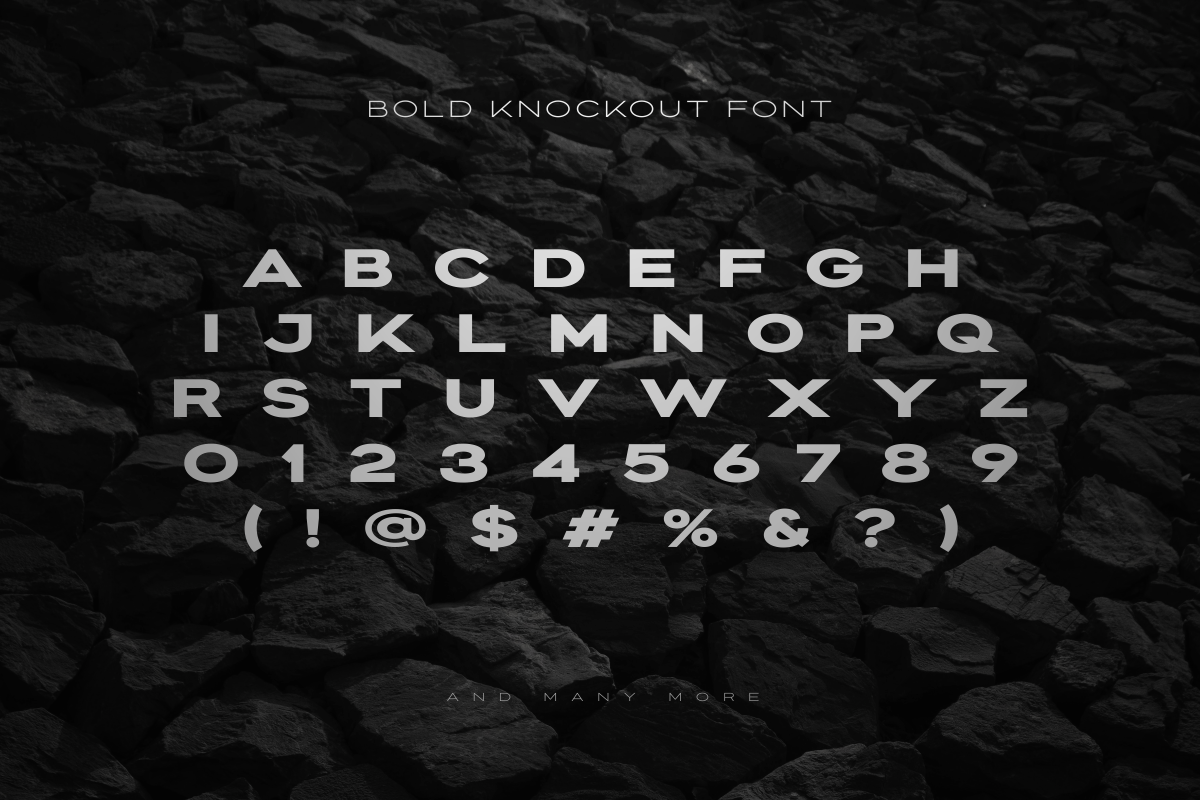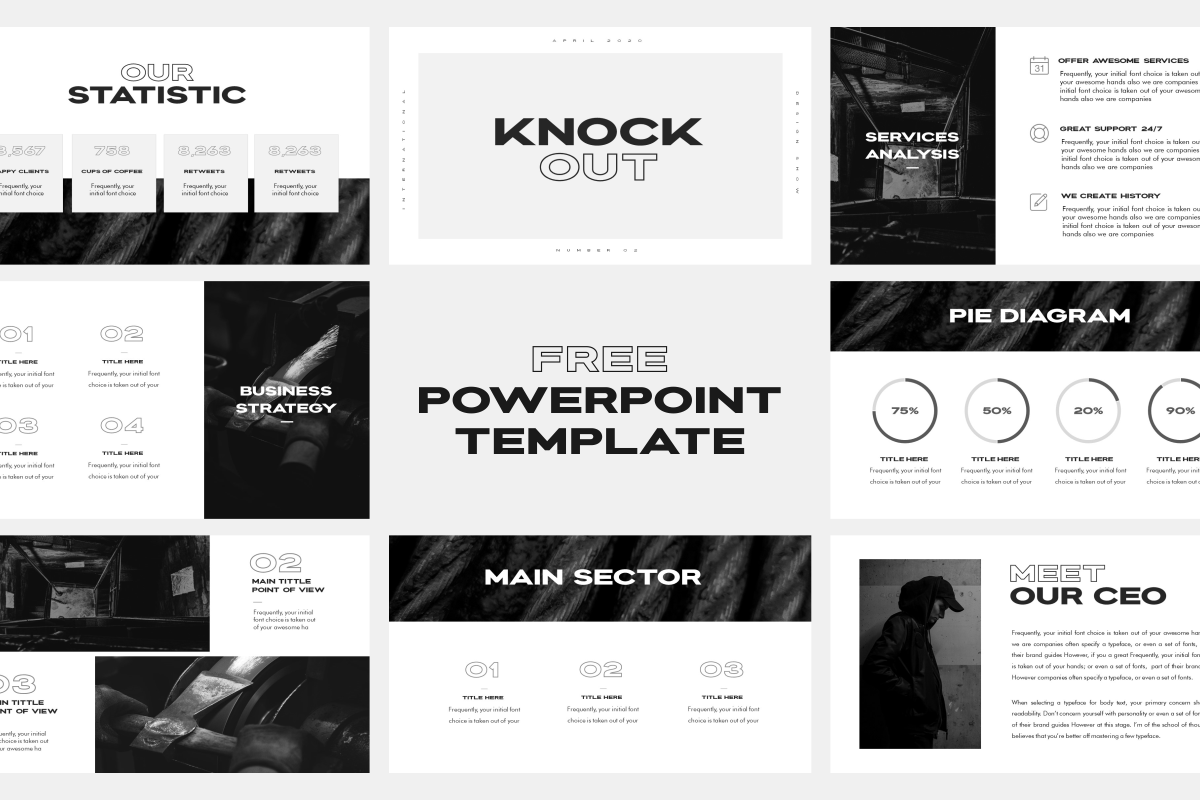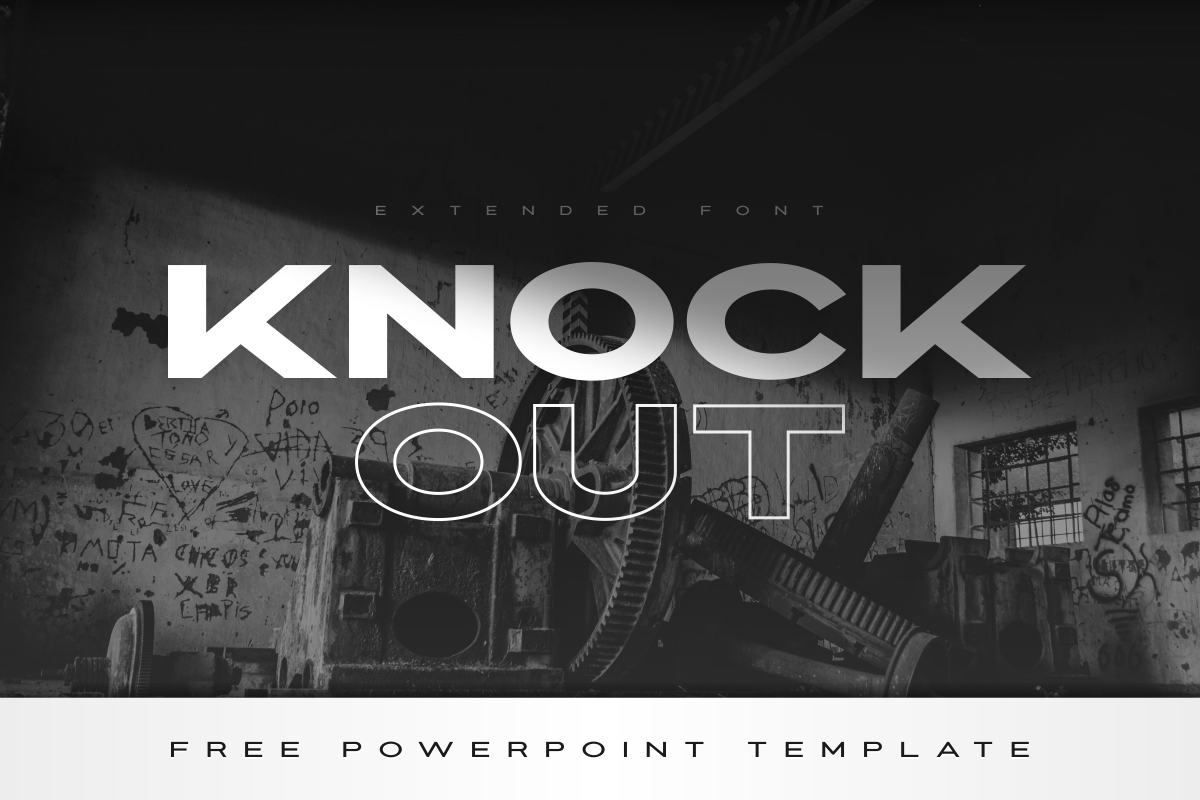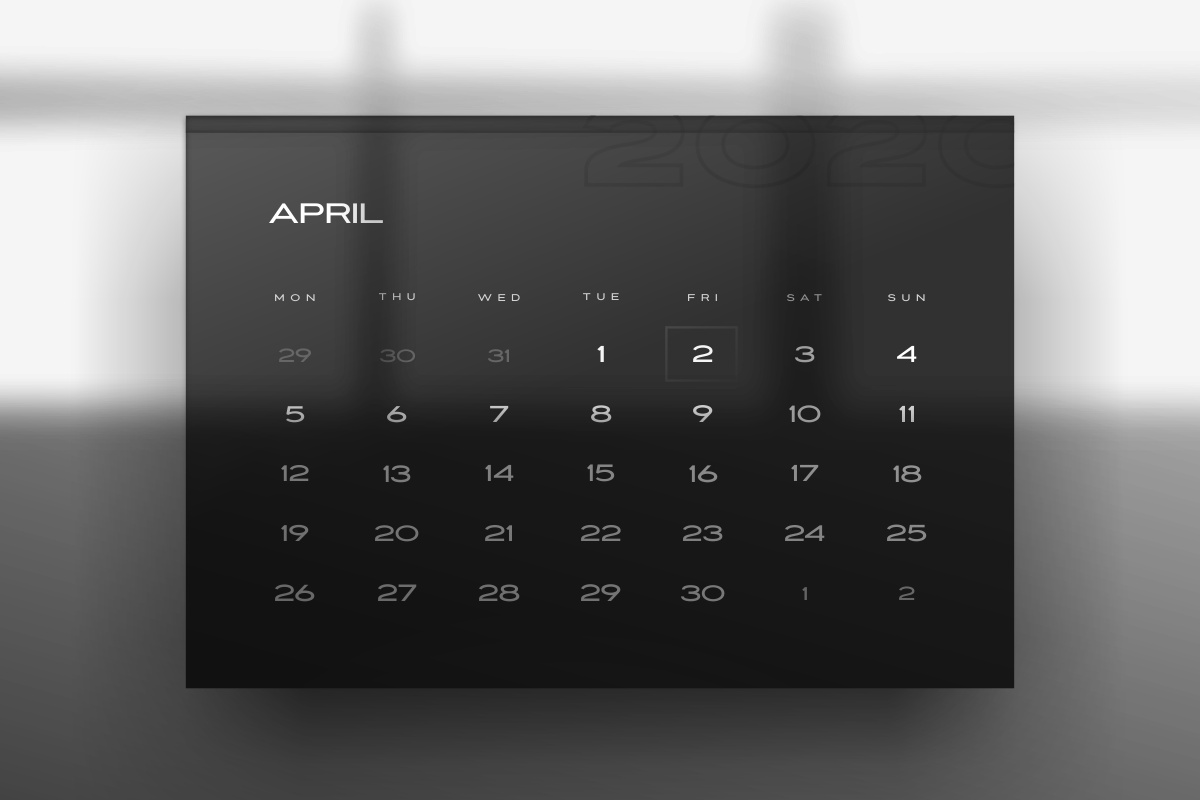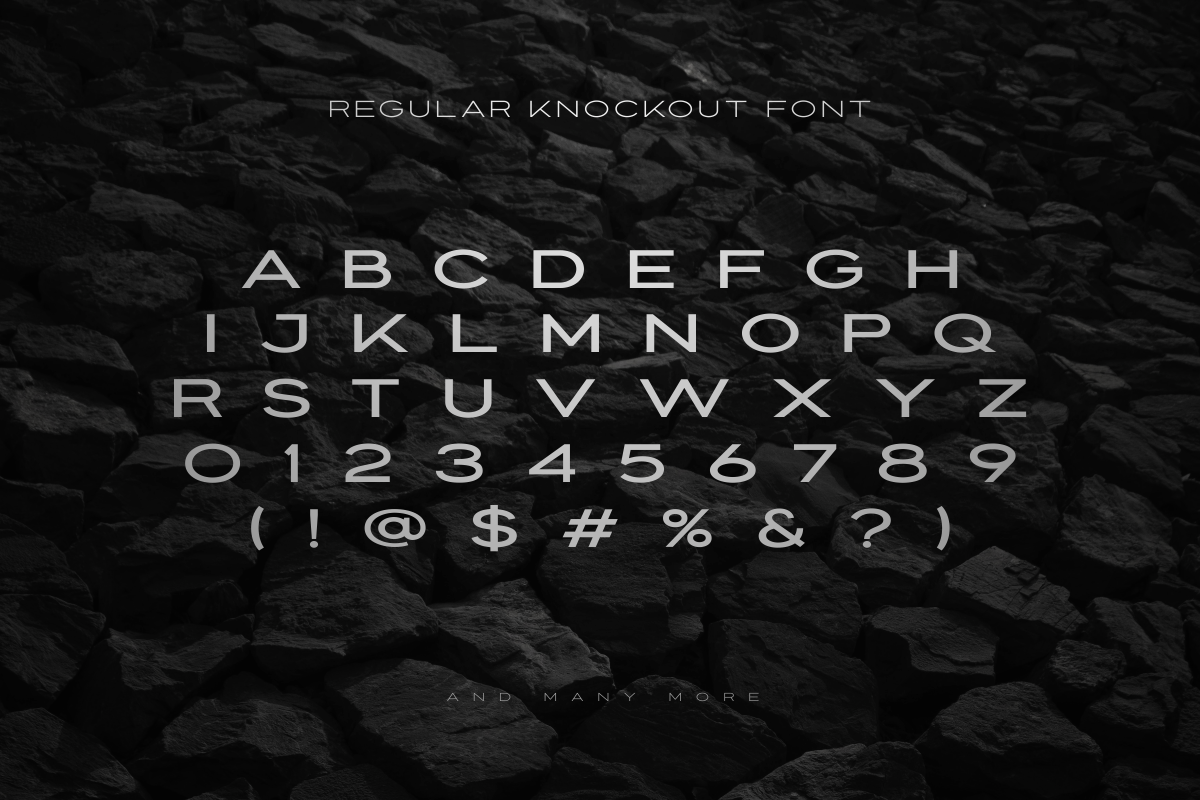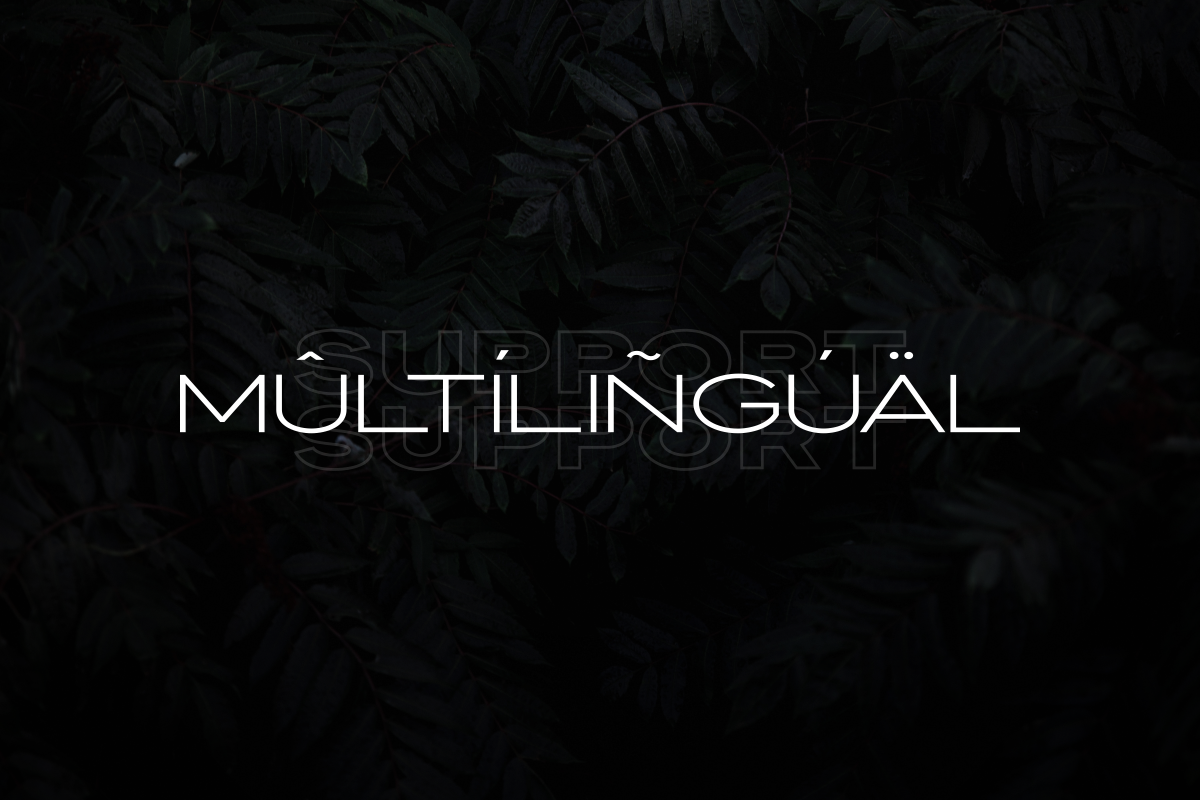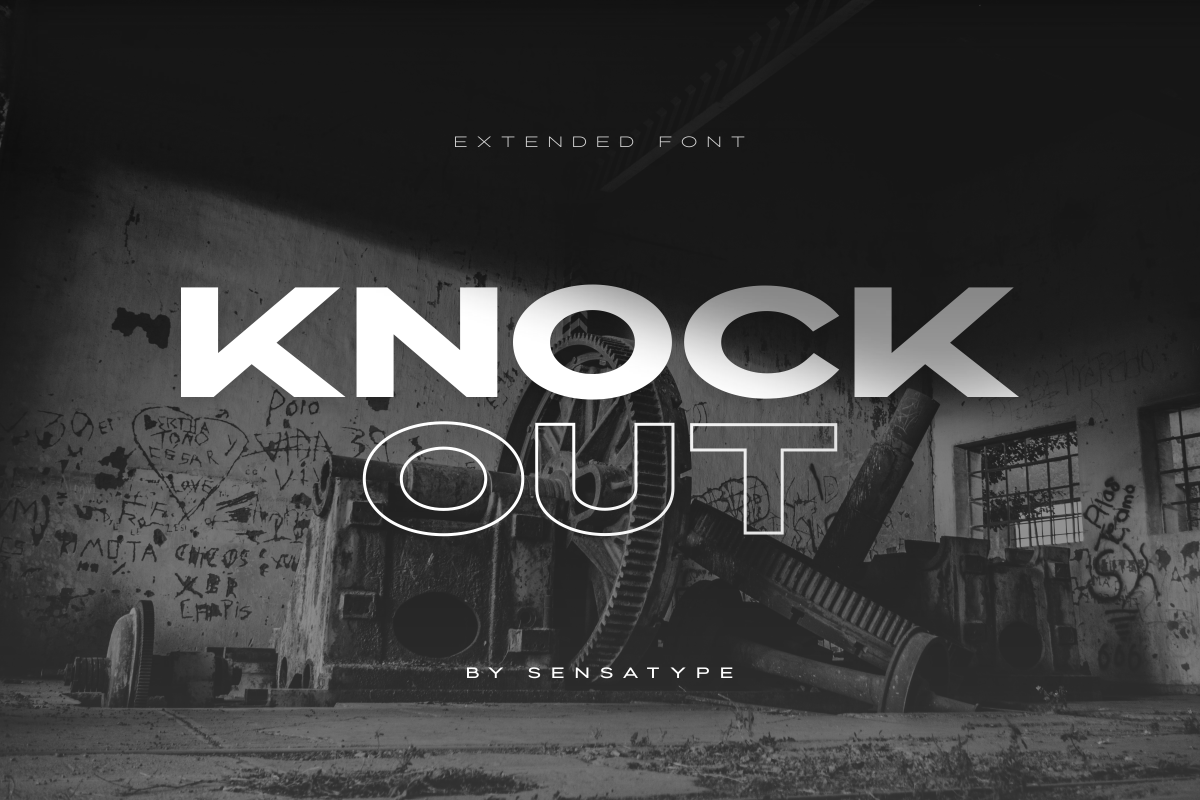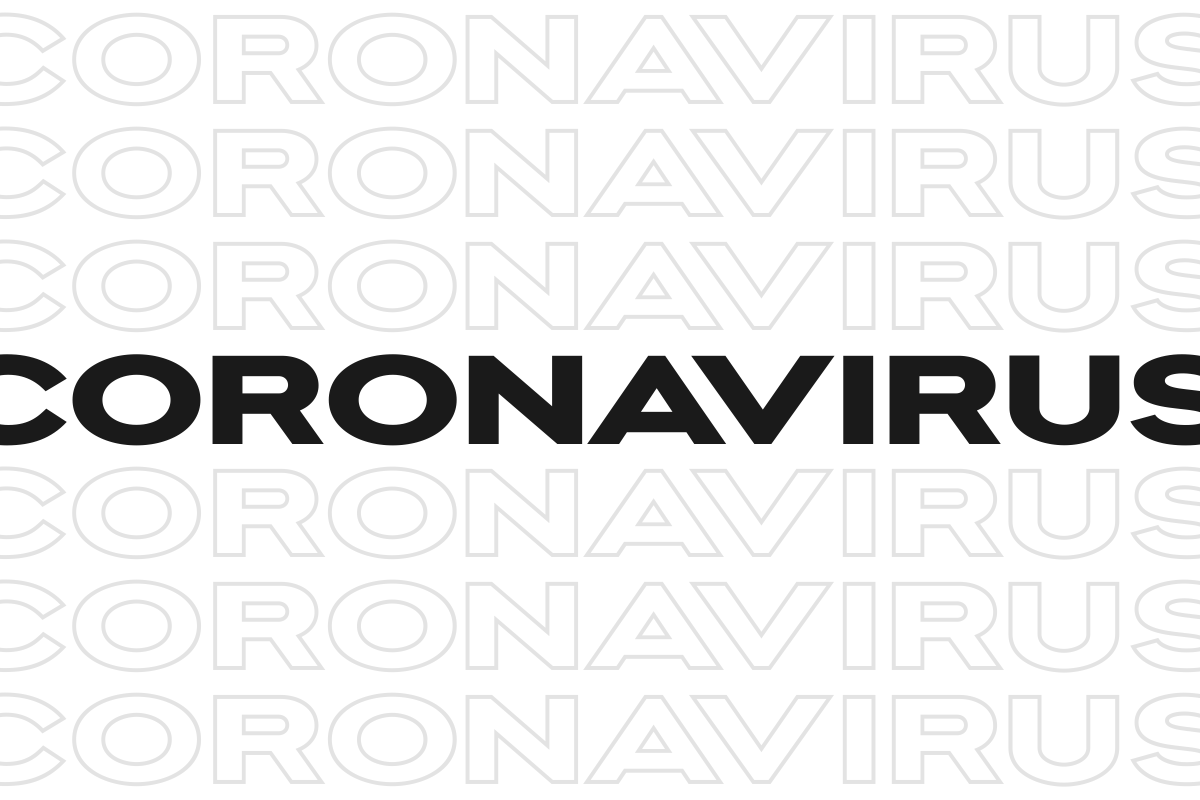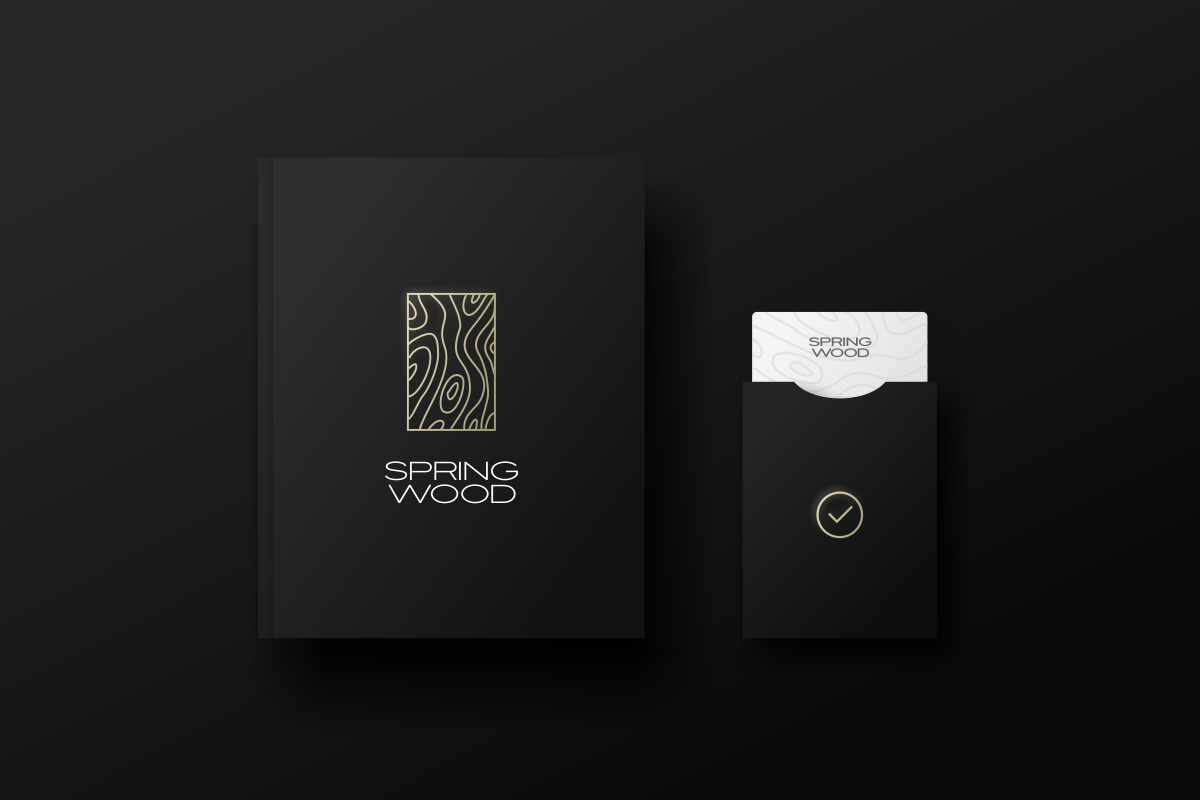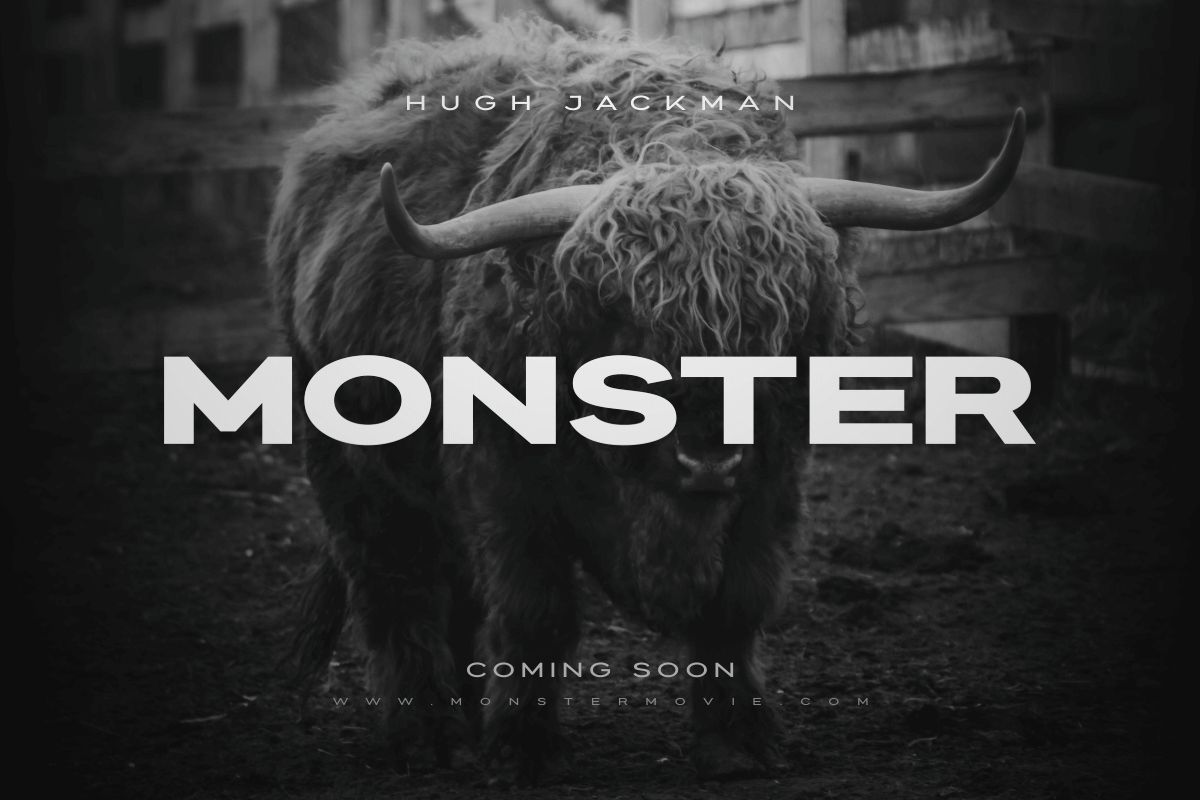
Knockout - Extended Font Family
Knockout is Extended Font Family created by Sensatype. A sophisticated geometric extended font inspired by popular sans-serif fonts, with some modifications to make it more Modern, Bold, Unique, and Classy-look. Special use for any purpose, start from Branding, Logos, Magazines, Films, Website, Headlines, Titles, Captions, Games, Apps, Posters, T-shirts and Many more.
Knockout Font Includes:
Advanced Character Set for Multi-Language Support
All-Caps Characters
4 Styles: Light, Regular, Bold, and Outline